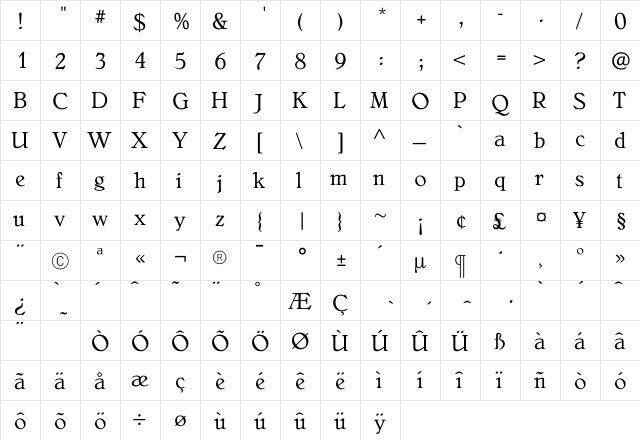
BelliniOriginal Regular
Design Context for BelliniOriginal Typeface
BelliniOriginal is a composed and adaptable typeface that performs quietly and consistently across a wide range of design contexts.